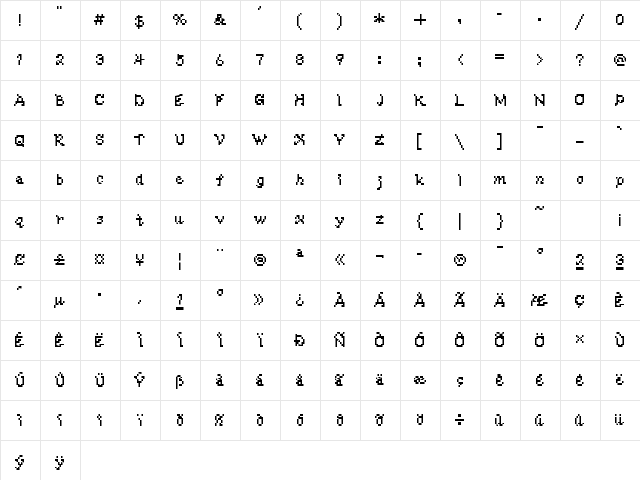
WWareTypeA Regular
| Designer | Caveras / Cliff Modes |
Design Context for WWareTypeA Typeface
WWareTypeA takes a measured approach to typography — its balanced proportions and neutral character make it a reliable workhorse for both digital and print work.